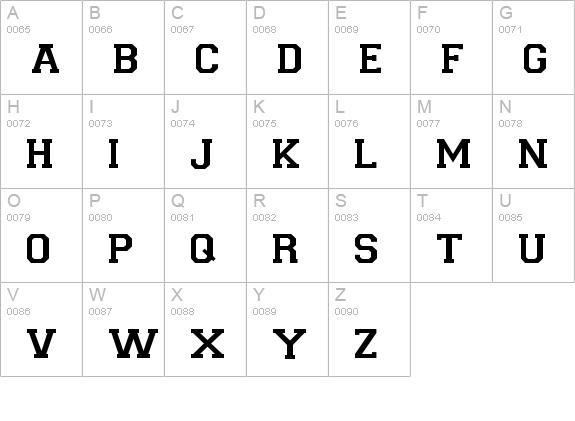
Collegiate-Insi Font Details
Collegiate-Insi font is a modern and stylish typeface that exudes elegance and sophistication. With its clean lines and sharp edges, this font is perfect for adding a touch of professionalism to any design project. Whether you're creating a logo, branding materials, or any other graphic design work, Collegiate-Insi font will make your text stand out. What's even better is that Collegiate-Insi font is available for free download at FontsMarket.com. That's right, you can access this high-quality font at no cost, making it a valuable addition to your font collection. Don't miss out on the opportunity to elevate your designs with Collegiate-Insi font - download it now and start creating beautiful typography today!